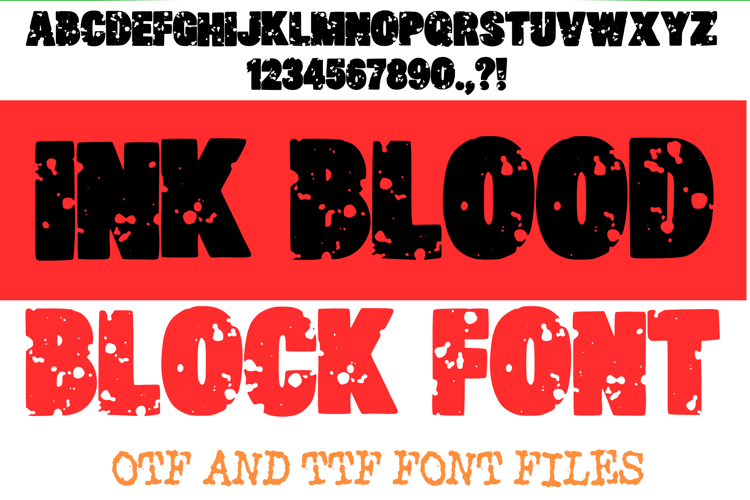
Ink Blood Block Lettering ABC Splatter Font Typeface OTF
Unleash a torrent of raw, visceral energy onto your designs with Ink Blood Block Font! This intense and powerfully dynamic typeface combines a heavy, assertive block structure with a chillingly authentic ink and blood splatter texture. It's more than just a font; it's a bold statement, designed to add immediate, gruesome impact and edgy attitude to any creative project.
Each character in Ink Blood Block Font features a strong, commanding form that is dramatically disrupted by organic splatters, drips, and distressed details, creating a unique, authentic, and eye-catching look. Ideal for crafting terrifying headlines, horror-themed logos, gritty urban posters, rebellious apparel designs, and engaging social media graphics, this font ensures your message is delivered with uncompromising force.
Whether you're creating Halloween invitations, horror movie posters, zombie-themed graphics, protest art, or a dark grunge aesthetic, this font delivers with visceral style. Its formidable presence ensures readability while injecting a raw, artistic chaos that commands attention and stands out from the crowd.
If you're looking to infuse your designs with a sense of brutal impact, artistic defiance, and undeniable street credibility, Ink Blood Block Font is your ultimate tool. Make your mark and let your creativity bleed onto the canvas!